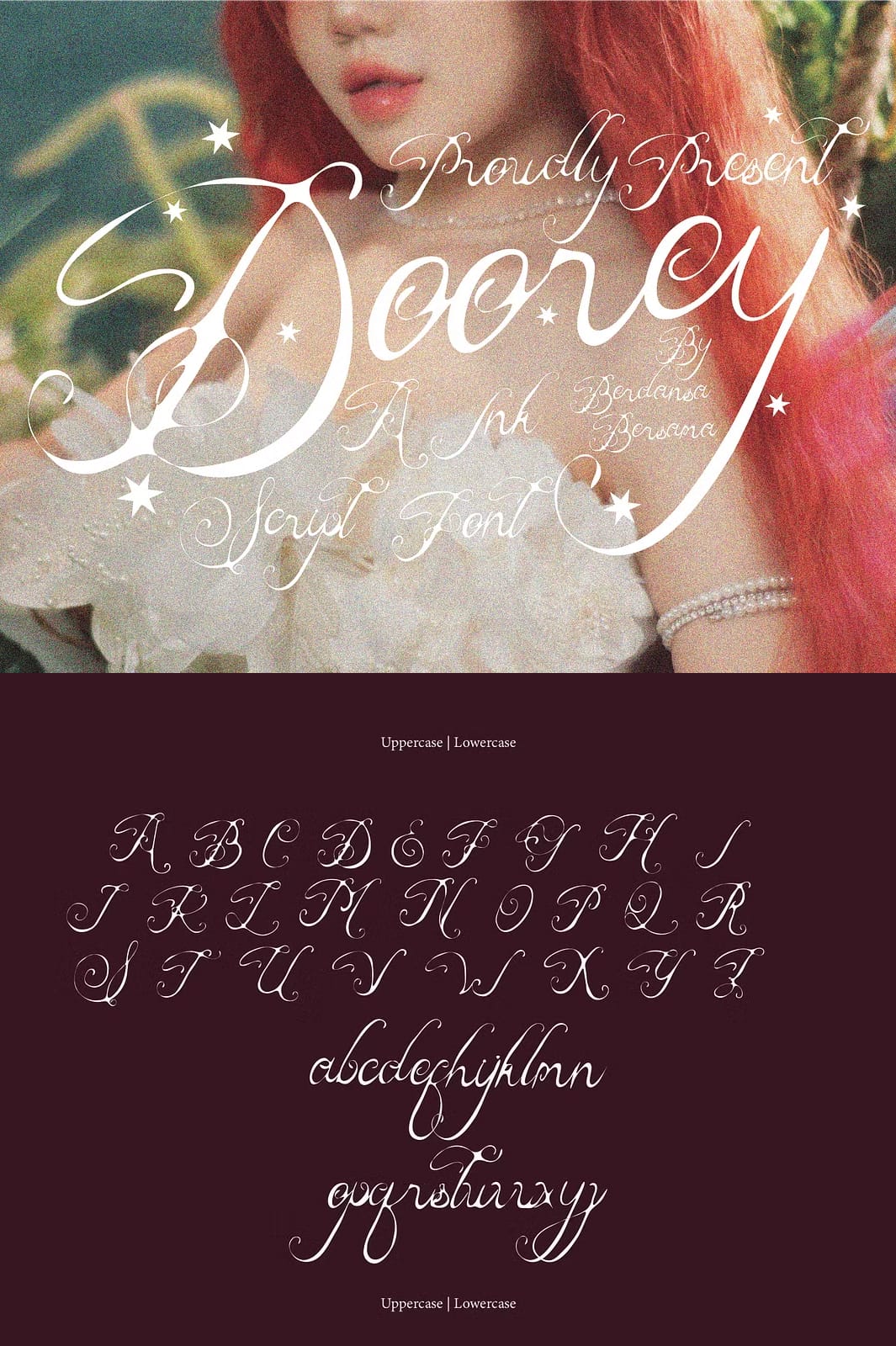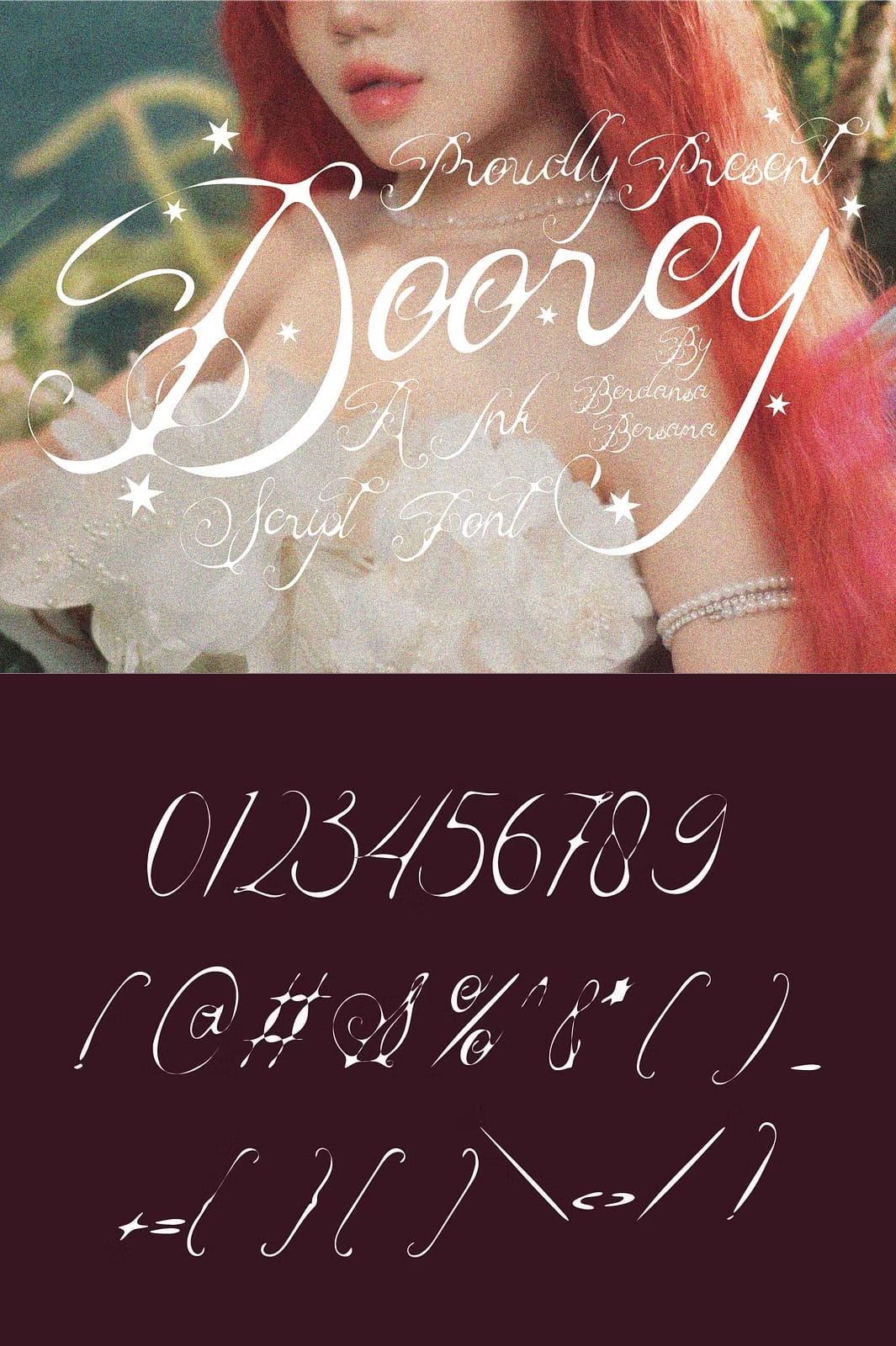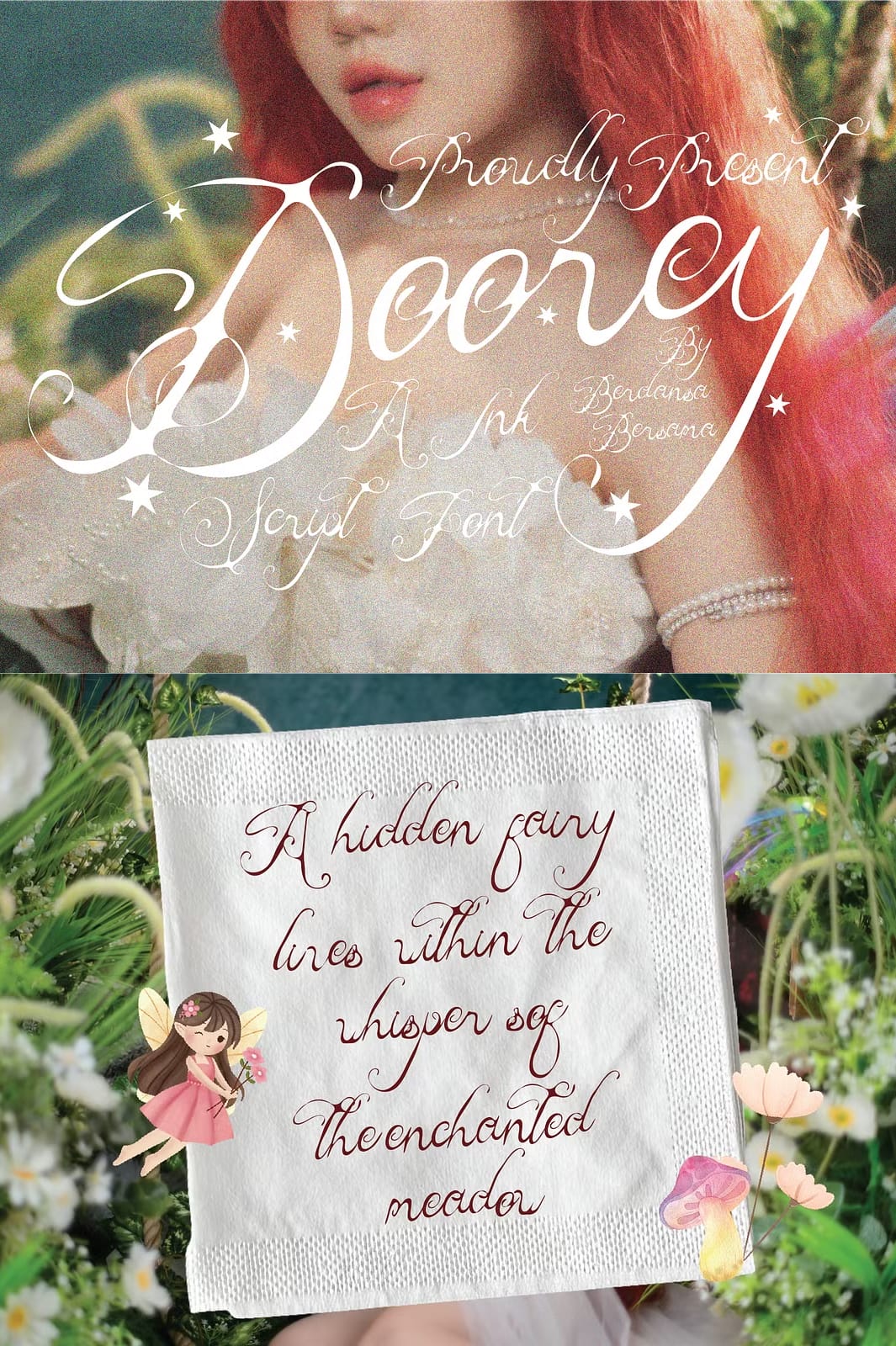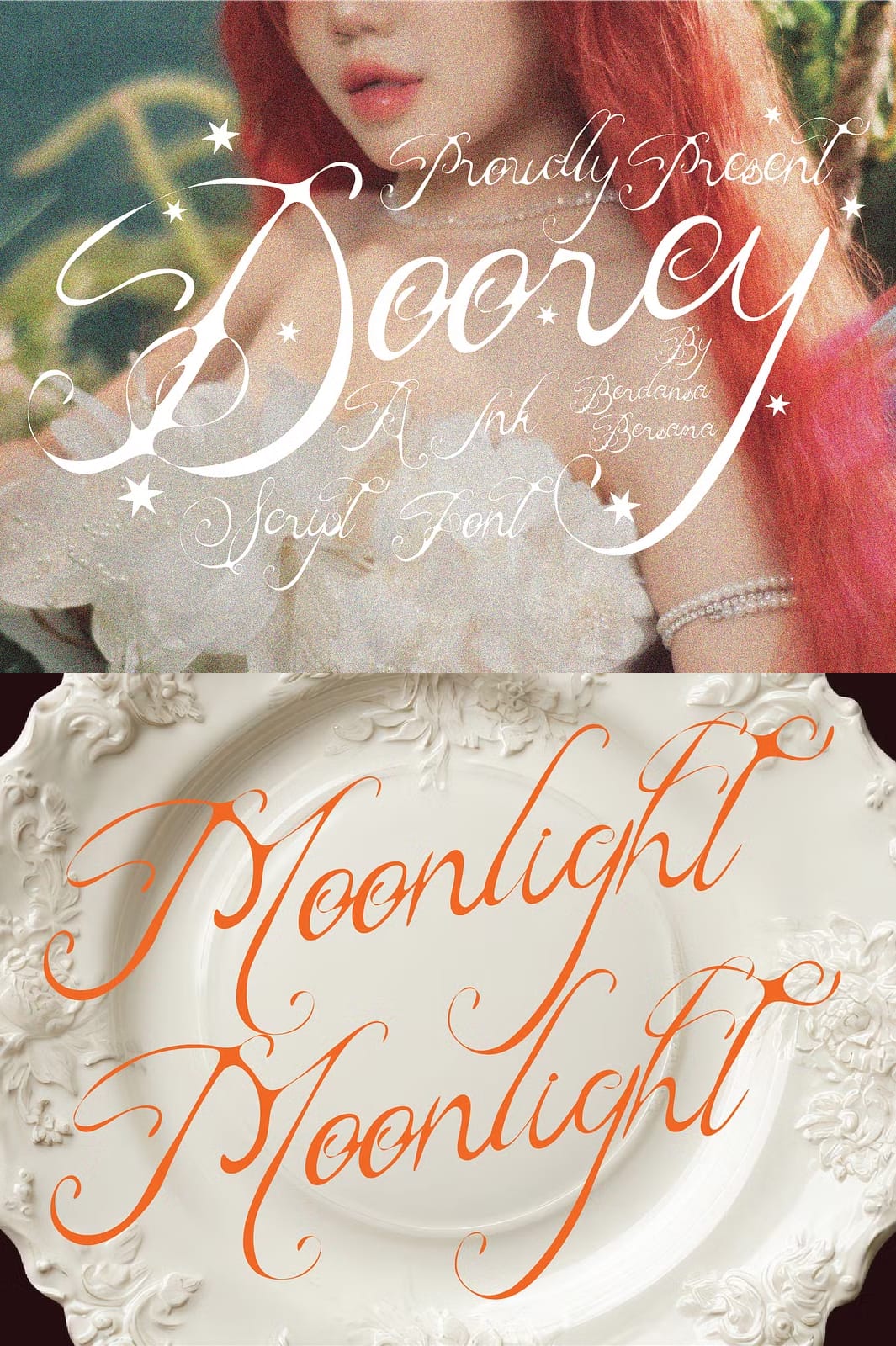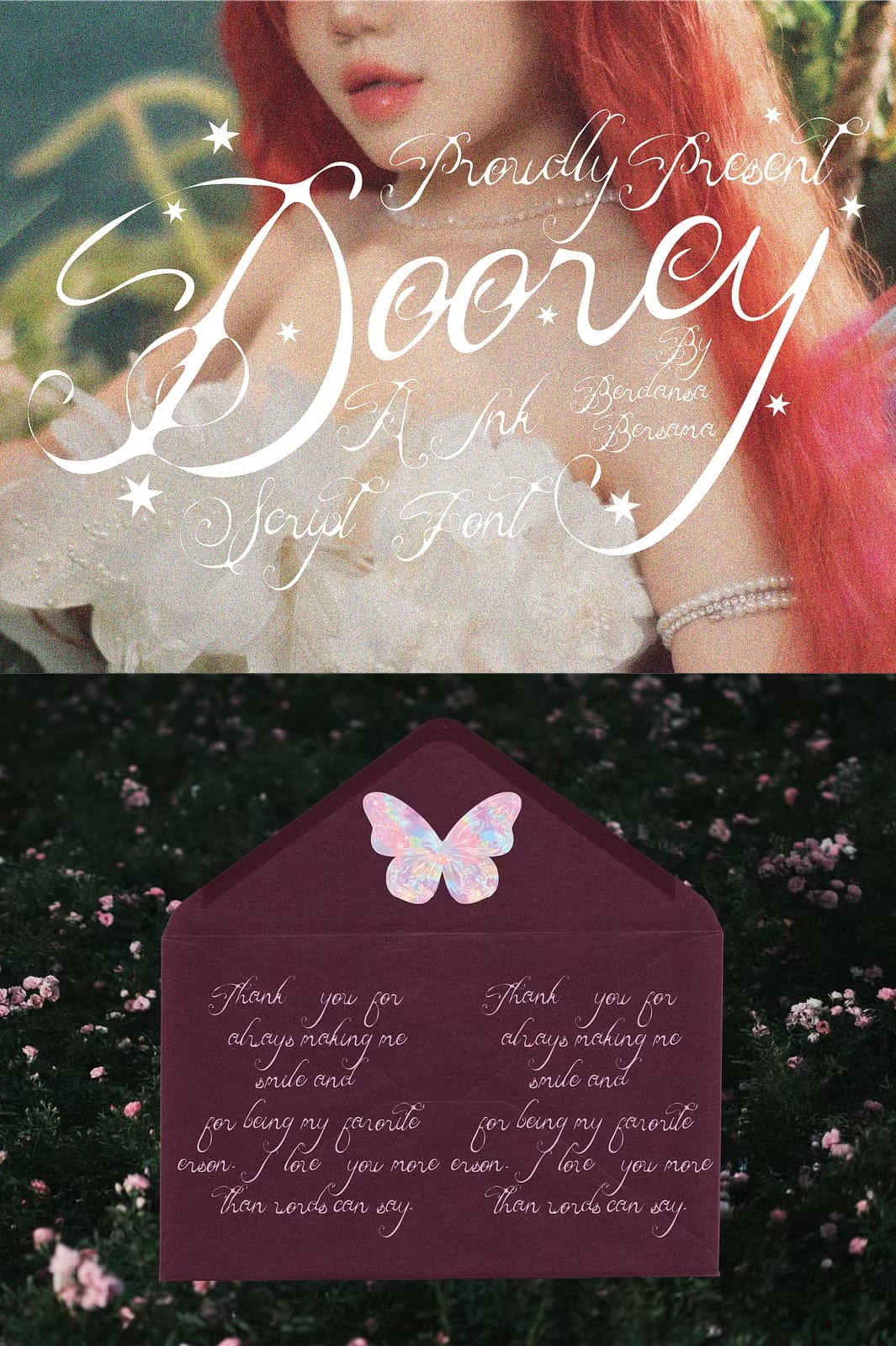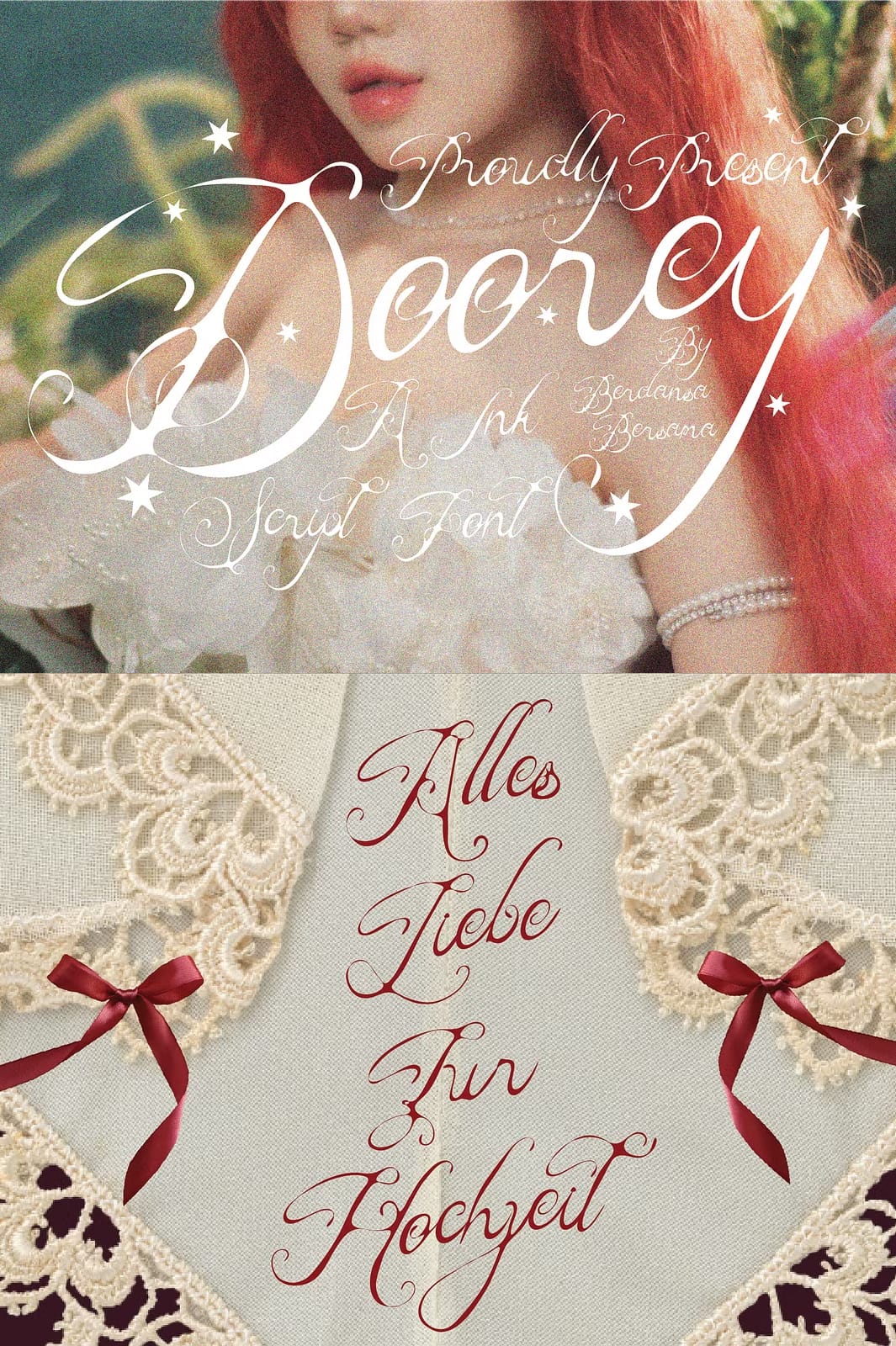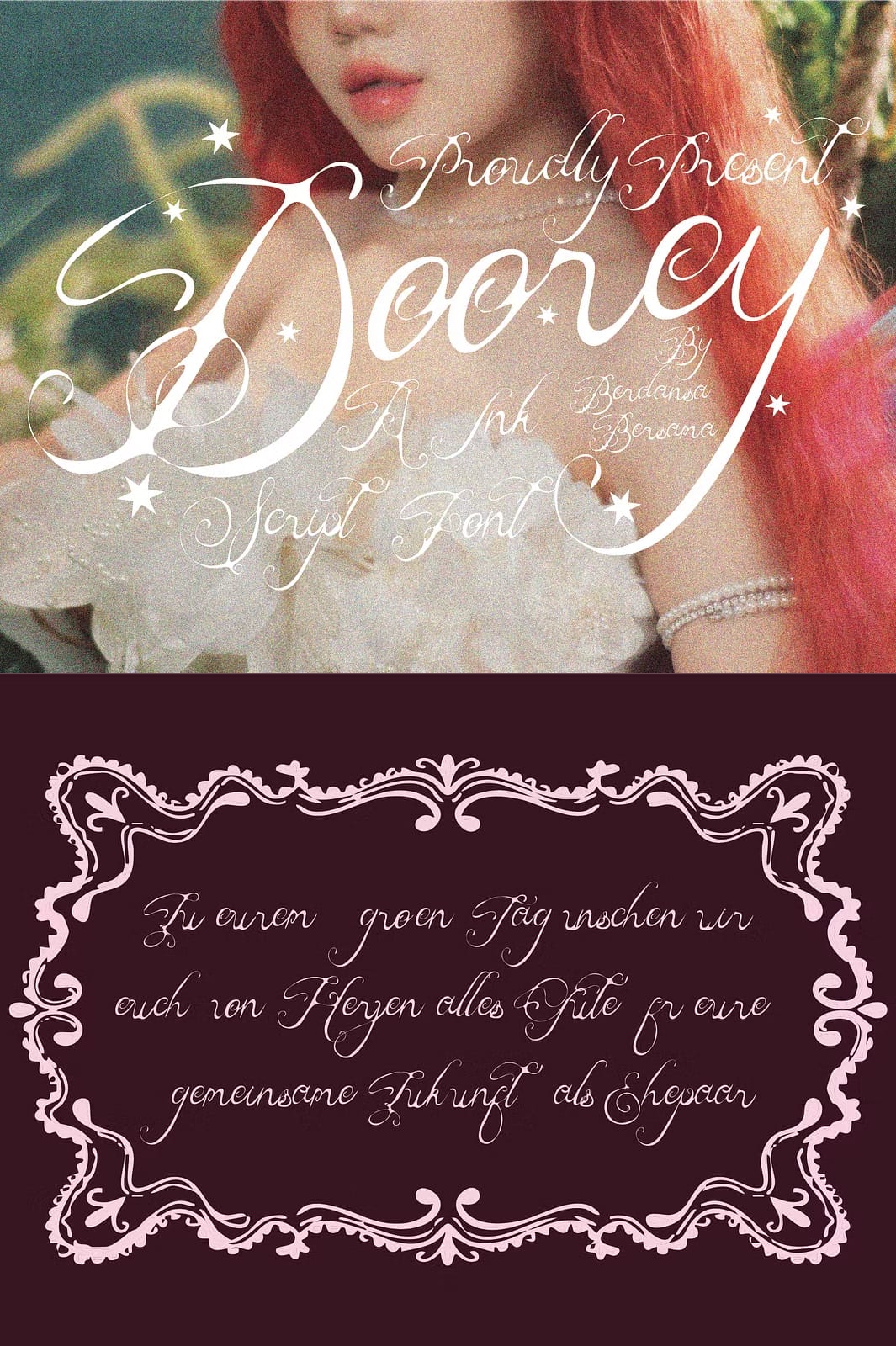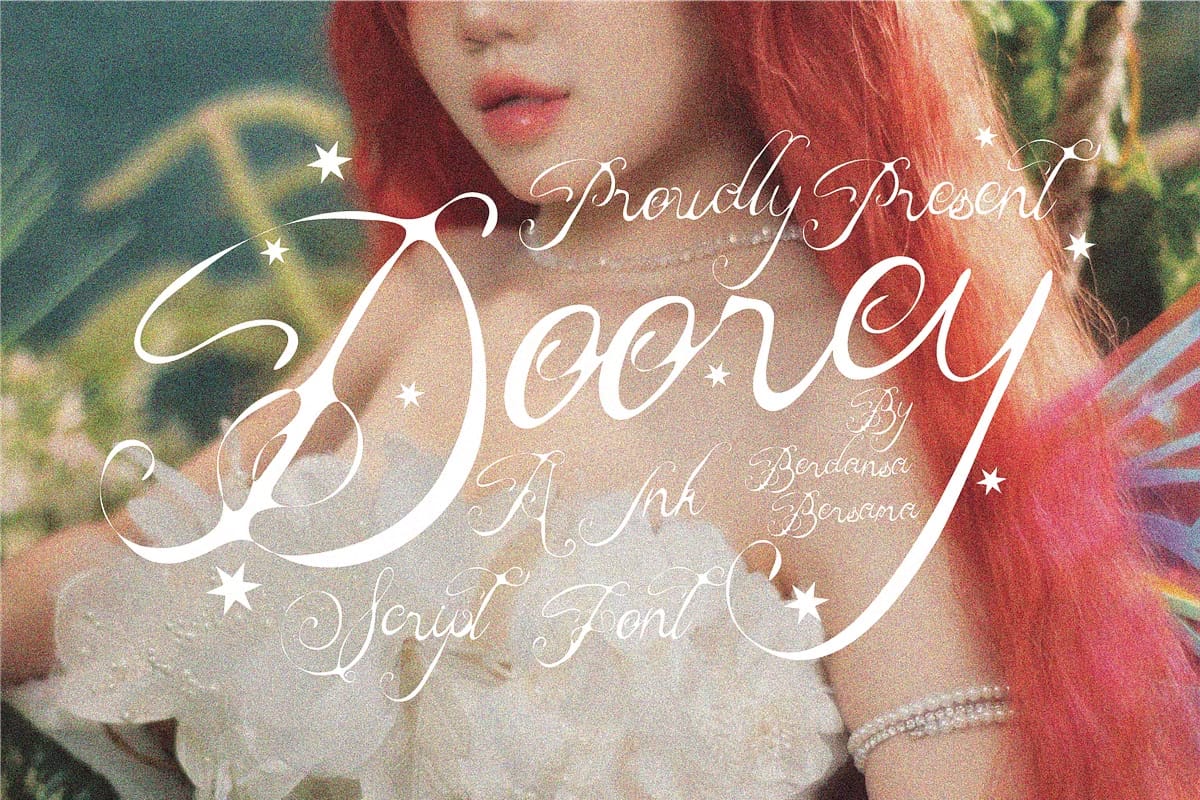
Doorey | A Ink Script Font
Doorey Is a decorative script font that combines elegance and artistic flair, featuring flowing, intricate letterforms adorned with subtle flourishes and star-like accents.
Numbers, marks and symbols